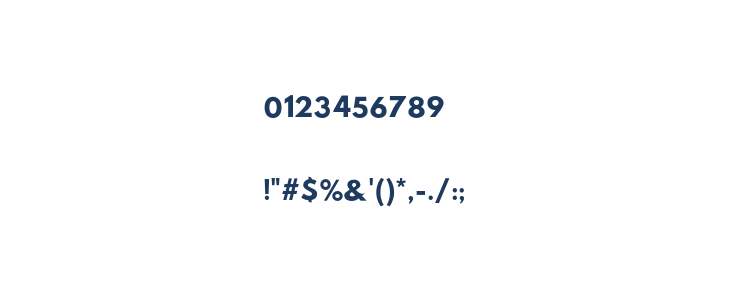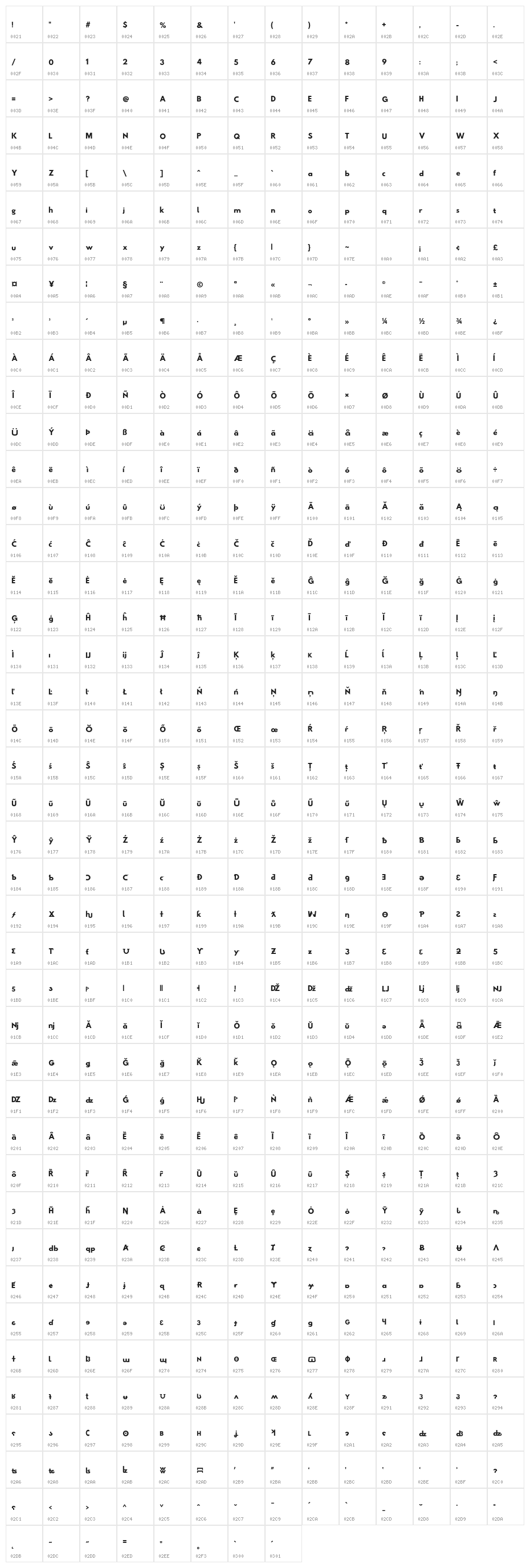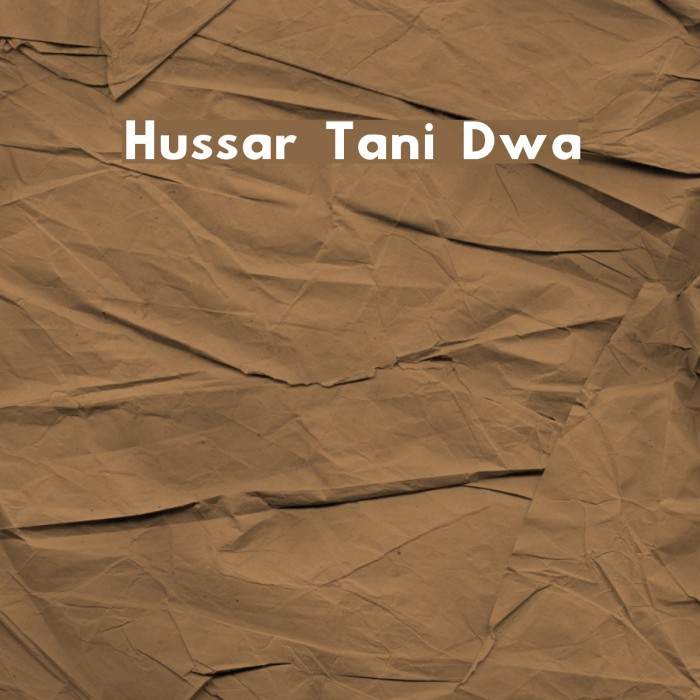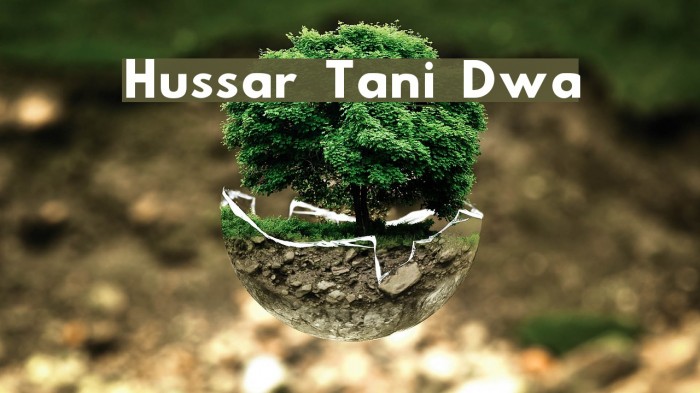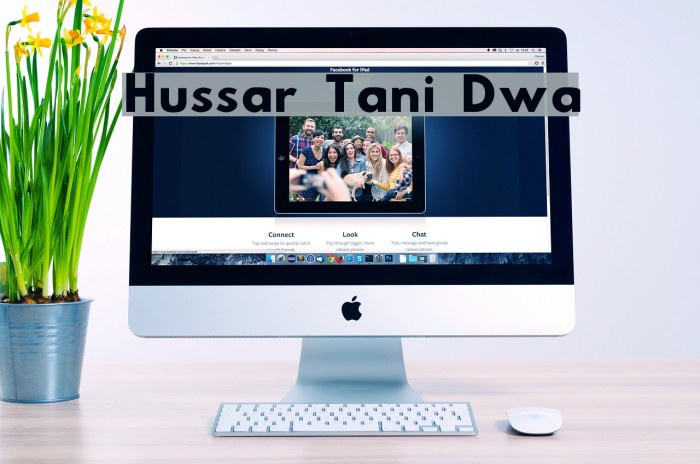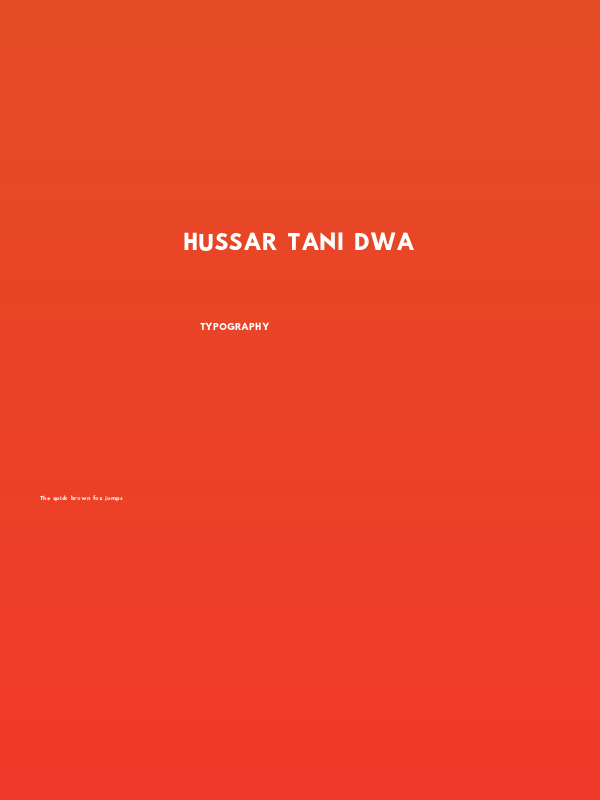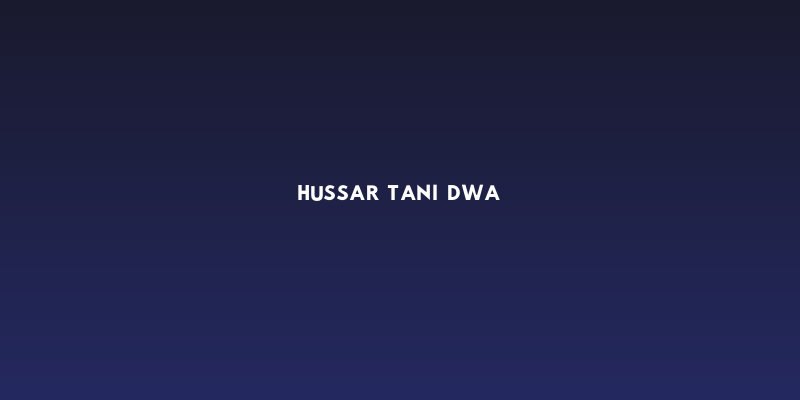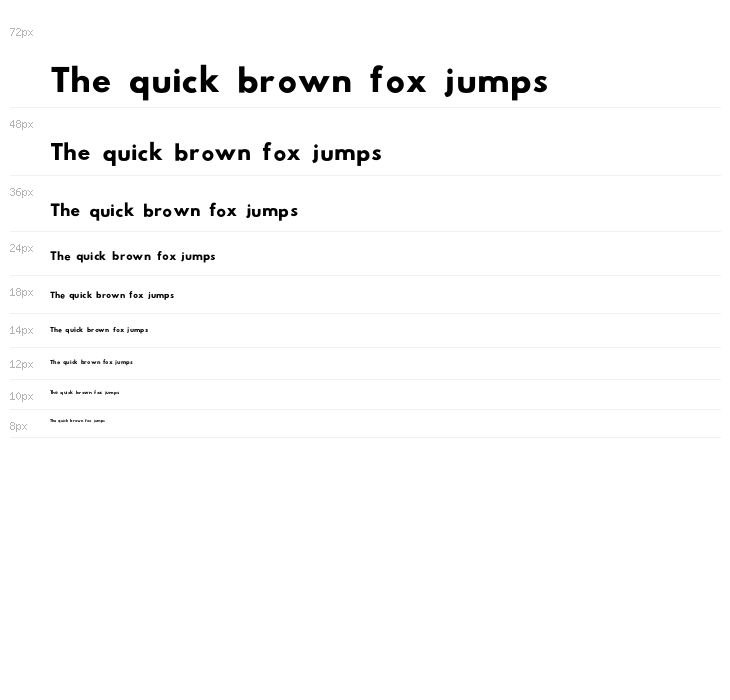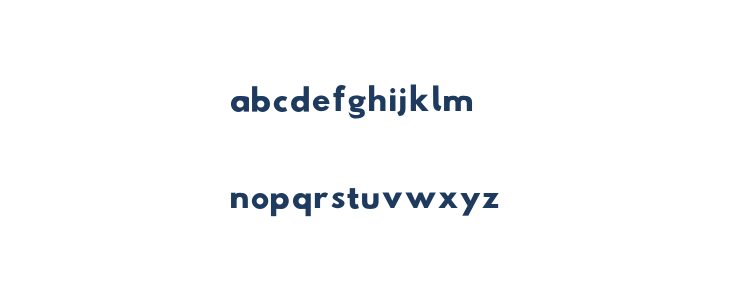
Hussar Tani Dwa Font
Hussar Tani Dwa Description
This font features a bold and modern design with clean, geometric shapes. The uppercase letters are uniform in height, providing a strong and cohesive appearance. The lowercase letters maintain a consistent style, with rounded edges that add a touch of softness to the overall look. The numerals are clear and legible, matching the boldness of the alphabetic characters. Special characters are well-integrated, maintaining the font's modern aesthetic. The font's simplicity and clarity make it versatile for various design applications.
| Proposed Projects | Ideal for branding, headlines, posters, and digital media where a modern and bold statement is needed. |